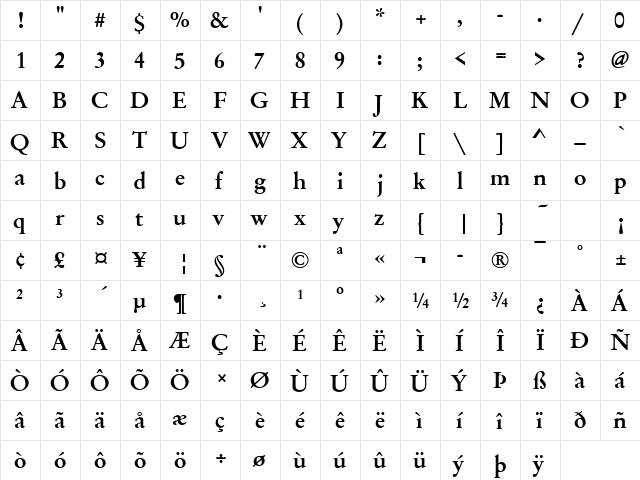
GaramondNo2TMed Regular Font Preview
GaramondNo2TMed Regular
Design Context for GaramondNo2TMed Typeface
GaramondNo2TMed is a composed and adaptable typeface that performs quietly and consistently across a wide range of design contexts.
Pro Tip: Use GaramondNo2TMed in both headline and body roles to test its range before committing to a single application.